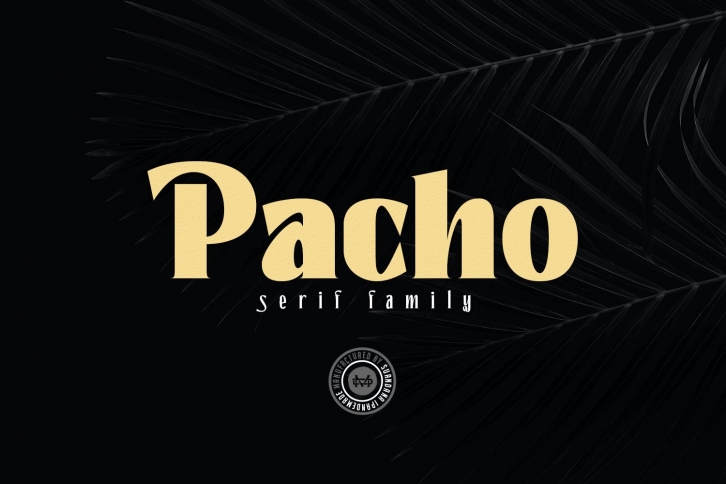
Pacho - Serif Family FONT Download
Pacho - Serif Family Font Download
Pacho is a gorgeous font that was realeased on January 26, 2021. The font can be used in many style contexts and design environments. Perfect for invitations, magazines, websites, logos, and more! It was designed by madeDeduk and the file size is 3.92 MB. Thanks for checking out this font!